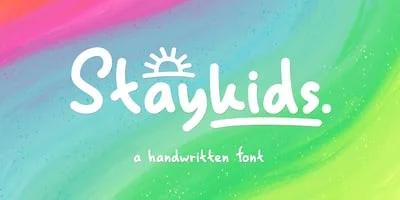
Stay Kids Font
The Stay Kids Font is excellent for children's book illustrations, educational materials, toy packaging, daycare center signage, kids' birthday invitations, playground graphics, children's app interfaces, and family-friendly branding projects. This delightful typeface works wonderfully in applications where fun and child-friendly appeal are essential, making it perfect for brands that target young audiences and want to create joyful, engaging experiences that capture childhood wonder and imagination.
What makes Stay Kids Font exciting is its playful energy and innocent charm that instantly connects with children's natural sense of wonder and creativity. The font's bouncy letterforms and cheerful character design create an atmosphere of pure fun and limitless imagination, making it ideal for educational brands and entertainment companies that want to inspire learning through play. Its friendly appearance and approachable design ensure that every application feels safe, welcoming, and age-appropriate for young minds.
The Stay Kids Font family typically includes regular and bold weights, often featuring decorative elements, colorful alternates, and whimsical symbols that enhance its playful appeal. Many versions include fun dingbats, educational icons, and special characters designed specifically for children's content, providing designers with comprehensive tools for creating engaging kid-focused materials.
For designers working on projects that need to capture childhood magic and educational value, Stay Kids Font provides exceptional versatility. Its ability to instantly communicate fun and learning makes it an invaluable asset for educational publishers, toy companies, and any project requiring typography that embodies the joy, curiosity, and boundless energy of childhood experiences.